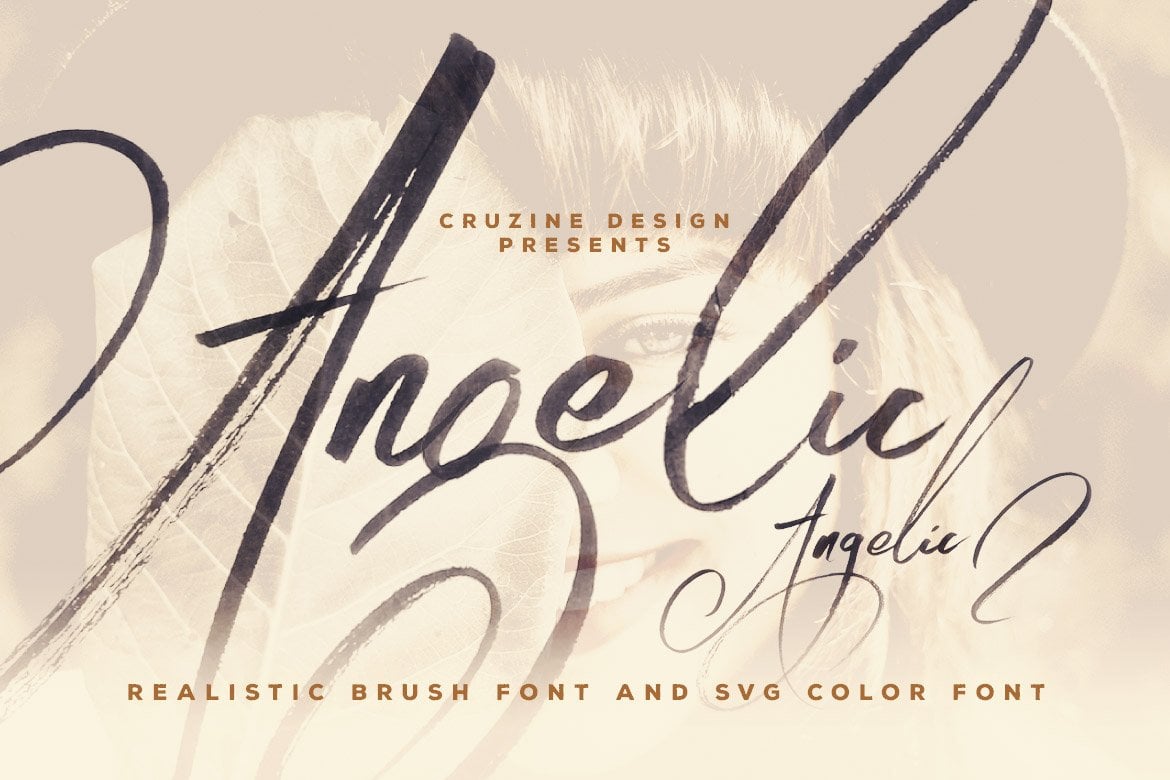
Angelic Brush & SVG Font
Angelic Brush & SVG Font is perfect for spiritual greeting cards, heavenly wedding invitations, divine beauty product branding, celestial event materials, sacred ceremony programs, ethereal spa signage, angelic children's books, inspirational quote graphics, spiritual retreat materials, and divine hospitality branding.
Angelic Brush & SVG Font is exciting because it masterfully combines the organic beauty of brush lettering with the precision of scalable vector graphics, creating a typeface that embodies heavenly grace, artistic expression, and divine inspiration. This font brings celestial sophistication and artistic authenticity to any project, making it ideal for brands that want to convey spiritual beauty, creative excellence, and the uplifting power of angelic presence. Its brushed character and divine appeal create an atmosphere of artistic spirituality that resonates with audiences seeking both creative inspiration and spiritual connection.
Angelic Brush & SVG Font family includes regular, light, and bold brush variations, plus SVG color options, celestial flourishes, and divine decorative elements, providing designers with comprehensive tools for creating heavenly brush typography and spiritually inspiring brand experiences.
This divine artistic typeface combines traditional brush lettering techniques with cutting-edge SVG technology, making Angelic Brush & SVG Font Free Download a perfect choice for projects celebrating both artistic craftsmanship and spiritual beauty. The font's lovingly crafted letterforms feature authentic brush strokes and angelic styling that reflect the gentle power of divine inspiration and artistic expression.
Whether you're designing spiritual art campaigns, divine beauty branding, or heavenly event materials, Angelic Brush & SVG Font delivers unmatched artistic authenticity and celestial appeal. The font performs magnificently across both digital applications where SVG scalability ensures perfect reproduction and print projects where brush texture creates tactile spiritual experiences.
Creative spiritual professionals choose Angelic Brush & SVG Font for its ability to instantly communicate divine artistry and spiritual grace while offering the technical versatility needed for modern multimedia applications. The font's brushed character makes it particularly effective for spiritual artists, divine wellness brands, and angelic-themed creative projects.
Each character reflects the flowing movement of inspired brush strokes, featuring organic curves and heavenly proportions that create typography as beautiful and uplifting as angelic art and divine creative expression.